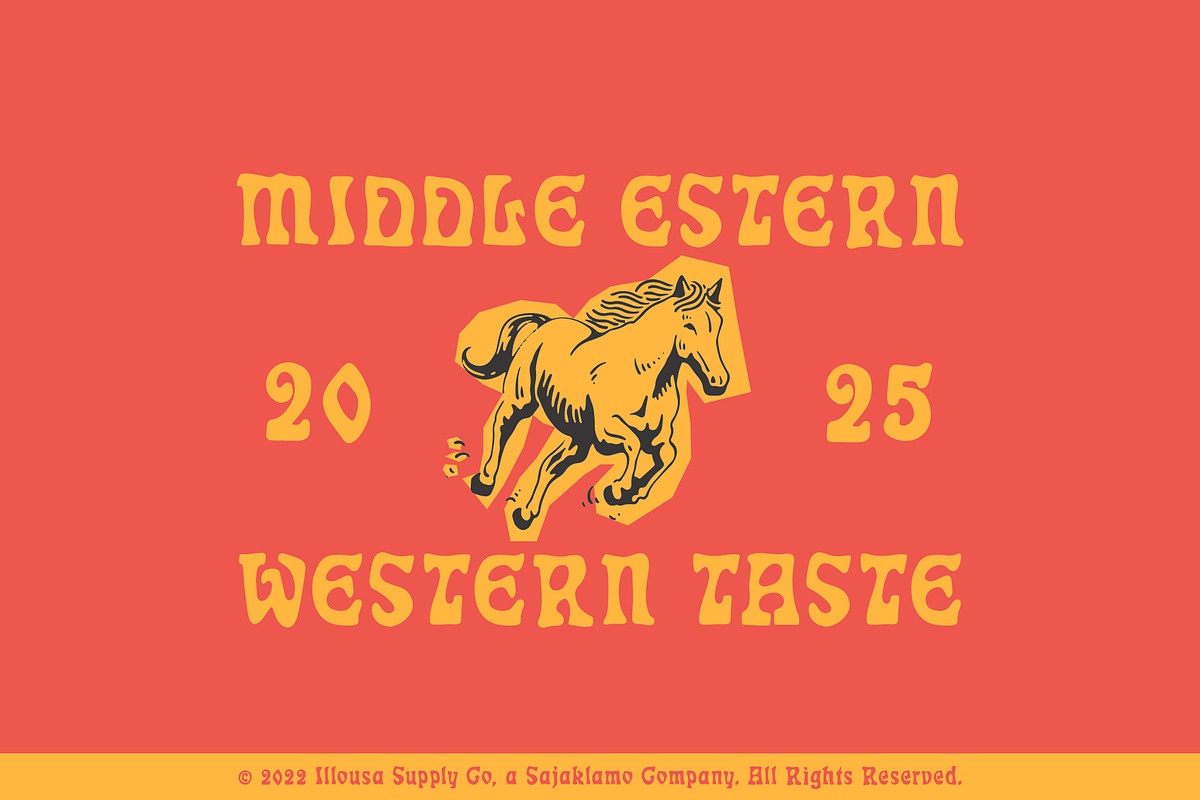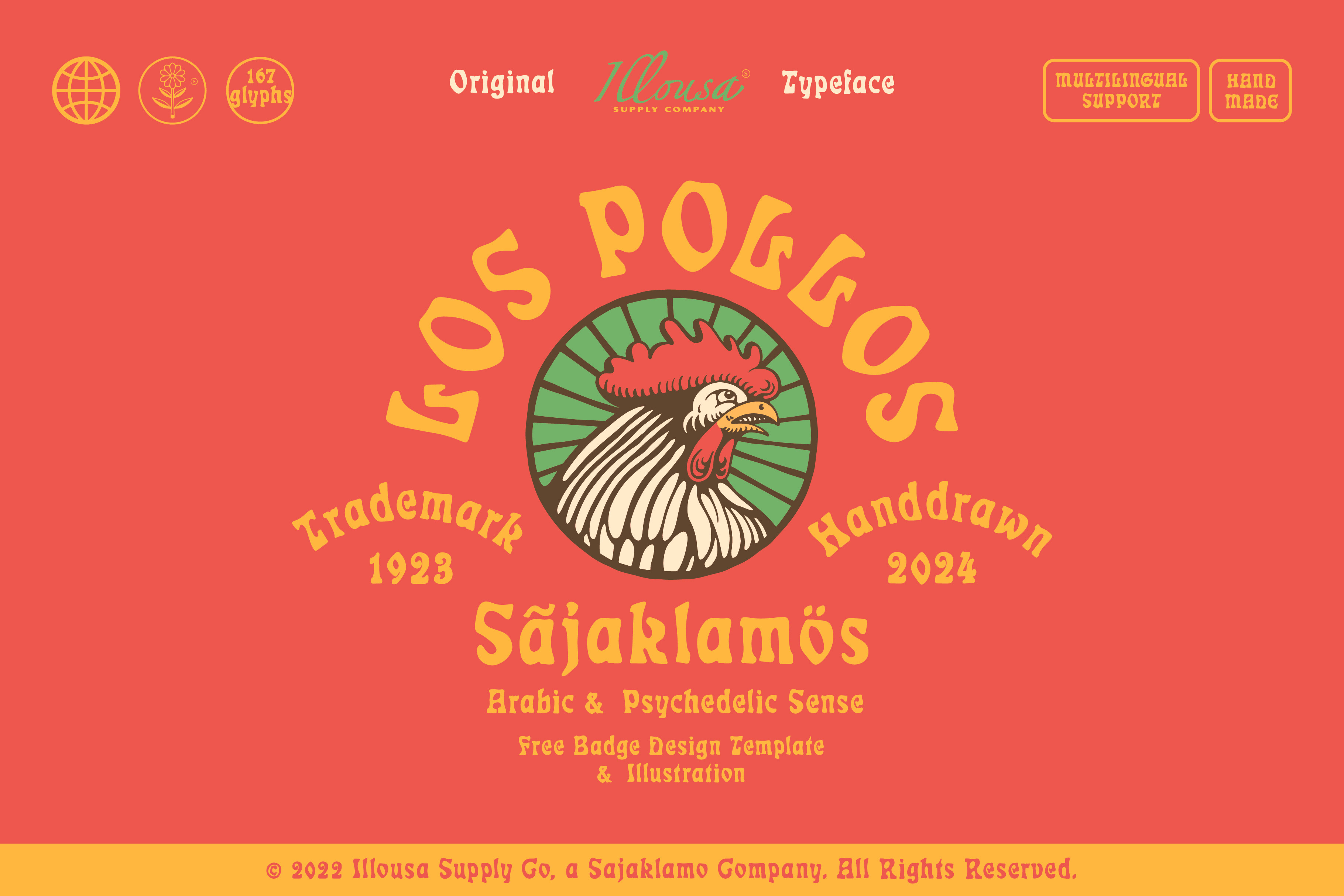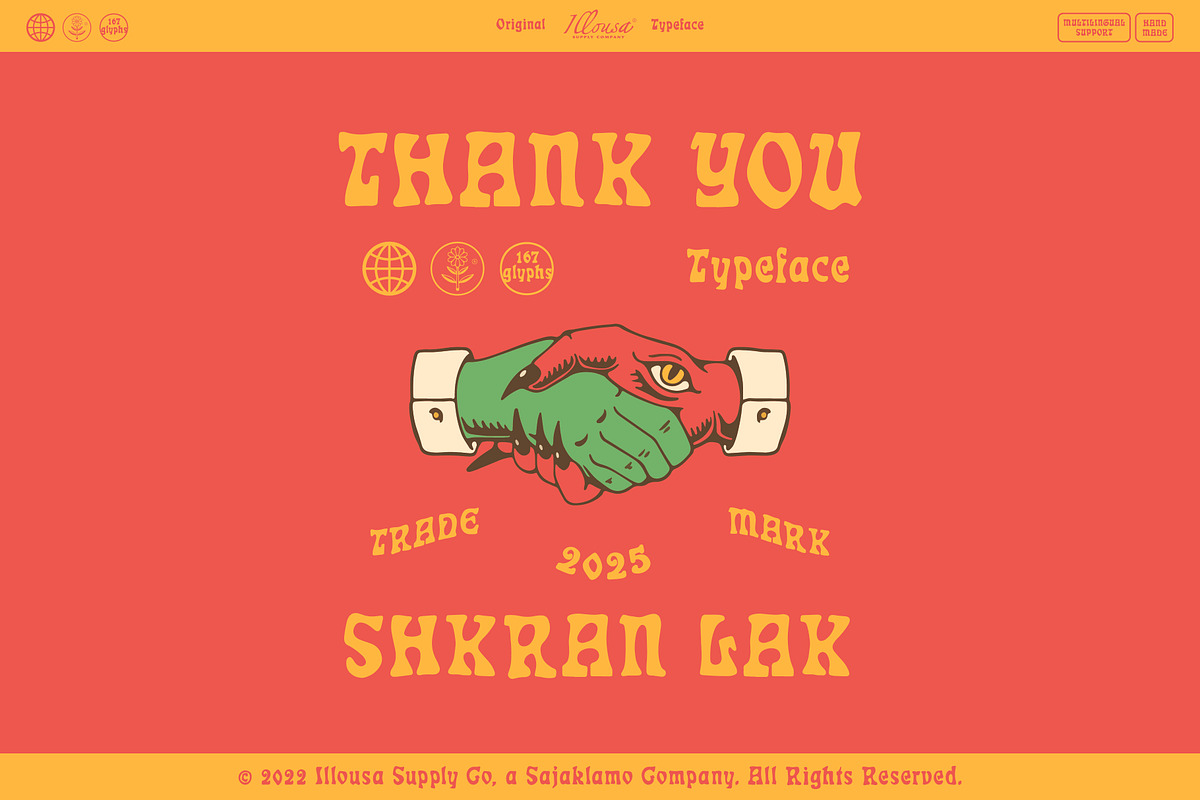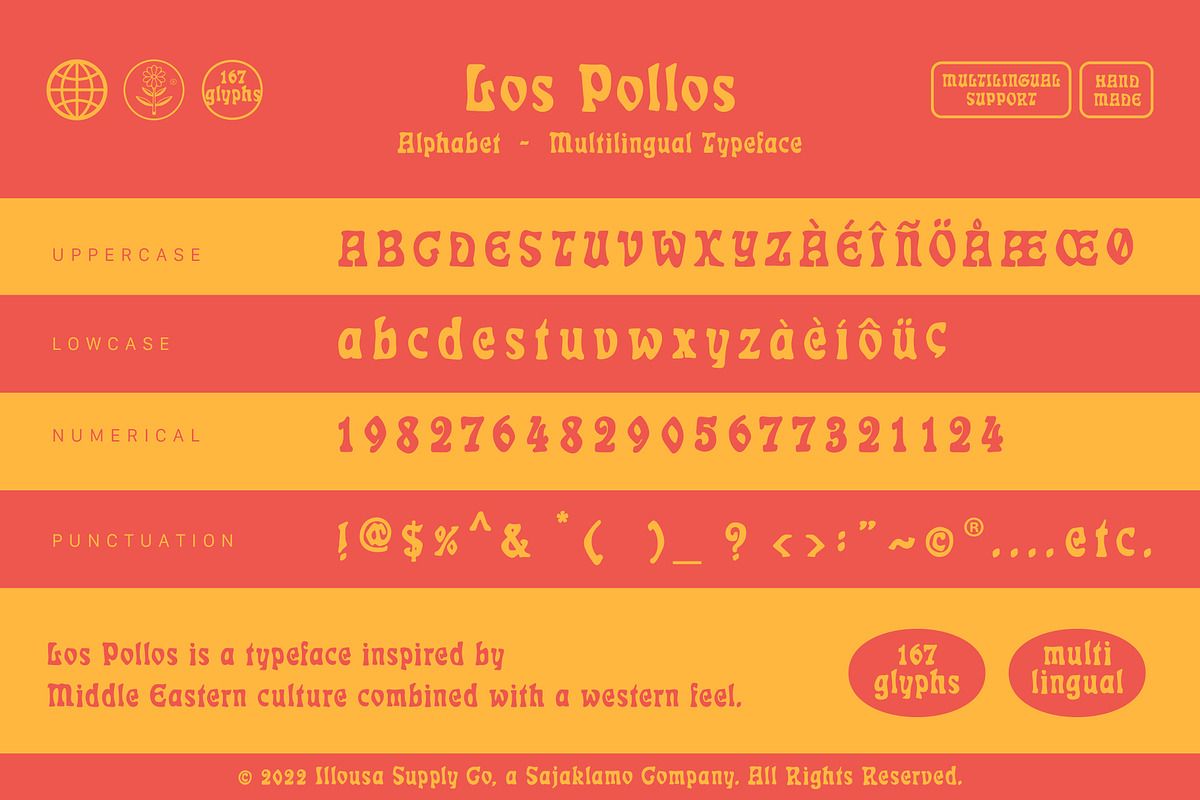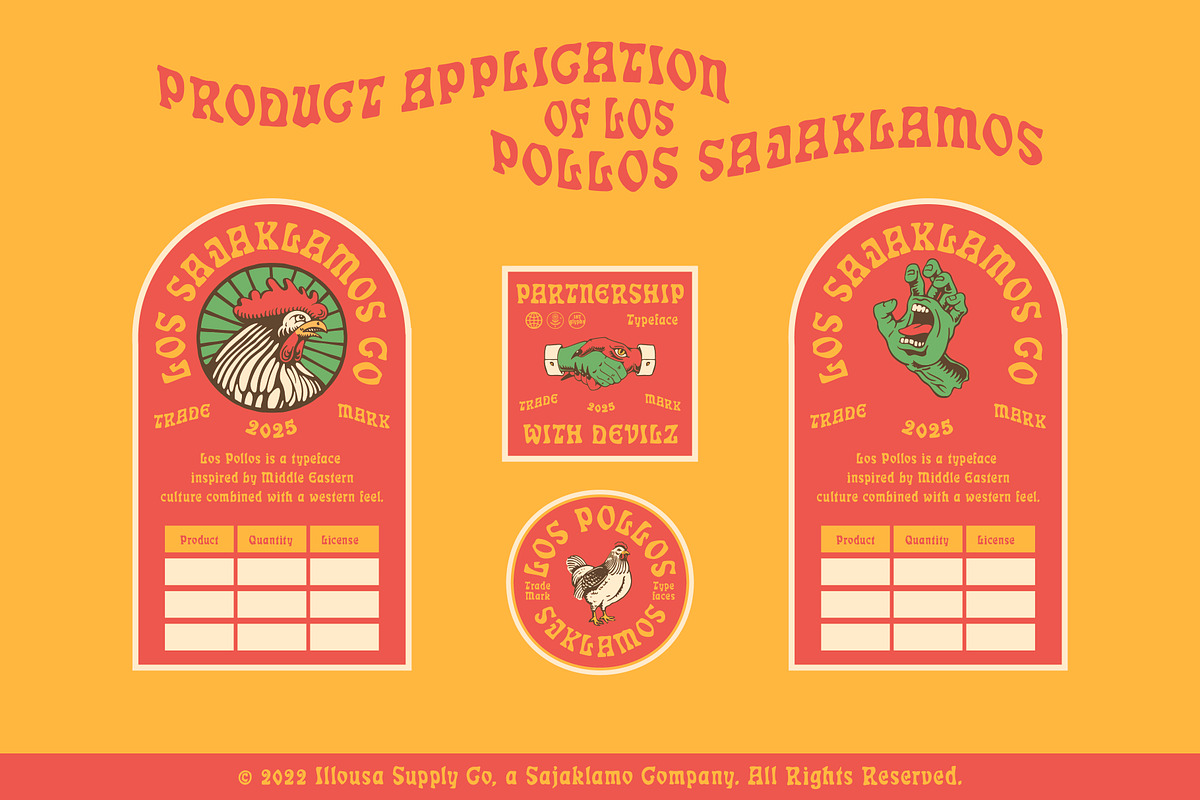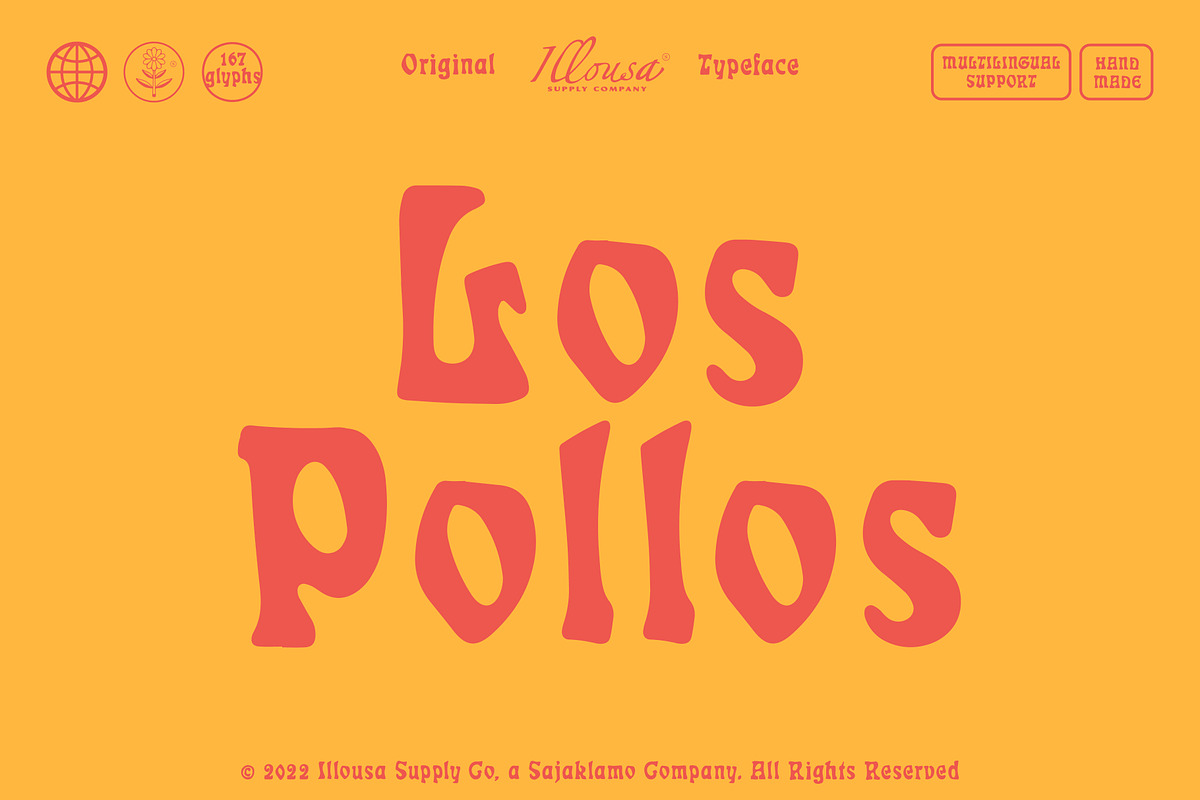
Los Pollos | Vintage Print Font
Los Pollos Vintage Print Font is a bold, expressive serif typeface inspired by vintage print and cultural character. Handcrafted with textured and clean versions, this font brings raw energy and unique personality to your design projects — especially for retro branding, merchandise, posters, and packaging.
- Bold serif print-inspired typeface
- Clean & textured font styles
- All caps with strong visual presence
- Multilingual support included
- Apparel & merchandise design
- Retro branding & packaging
- Poster headlines & signage
- Street culture & vintage visuals
- Logos and creative displays